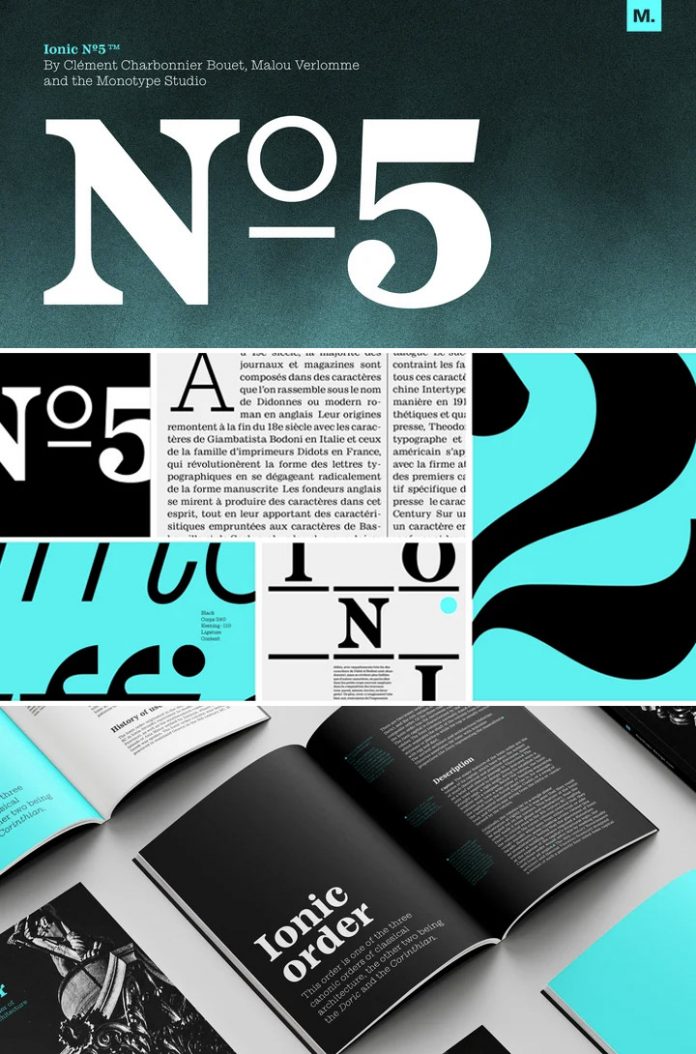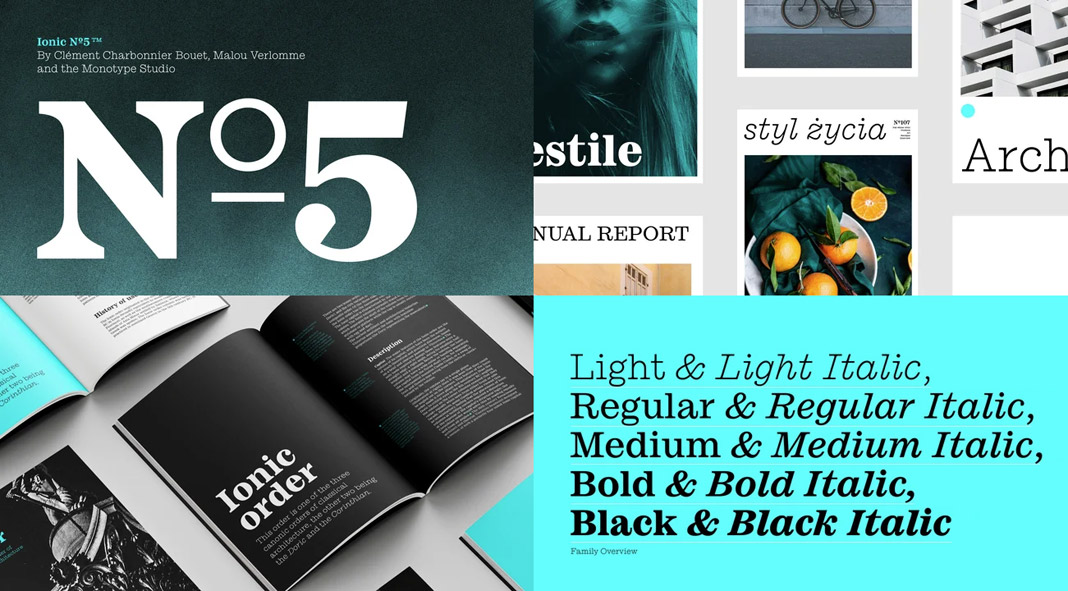
Ionic No 5, a characteristic font family that is based on a classic Linotype Clarendon-style serif.
Designed by Malou Verlomme and Clement Charbonnier Bouet for foundry Monotype, Ionic No 5 is a remake of a classic Linotype Clarendon-style serif. The original typeface was designed to be printed and read in small sizes. With Ionic No 5, the two designers brought a greater sense of clarity and directness to this classic typeface paired with a smartly stylish, and utterly captivating appeal. Ionic No 5 contains ten styles including five weights plus matching italics. For further information on all typographic features, just click on the following link.